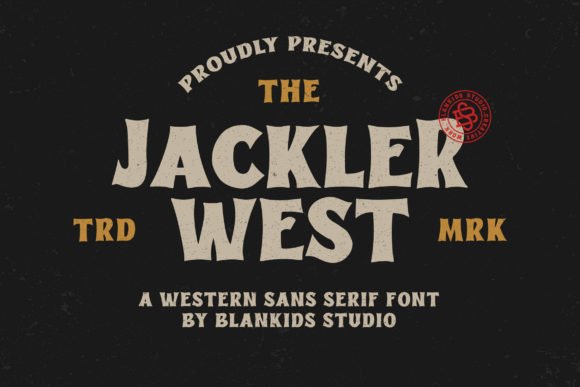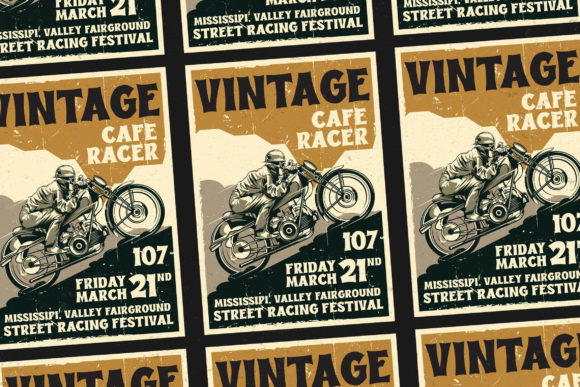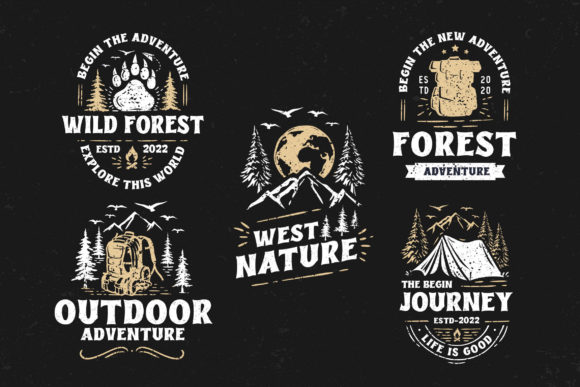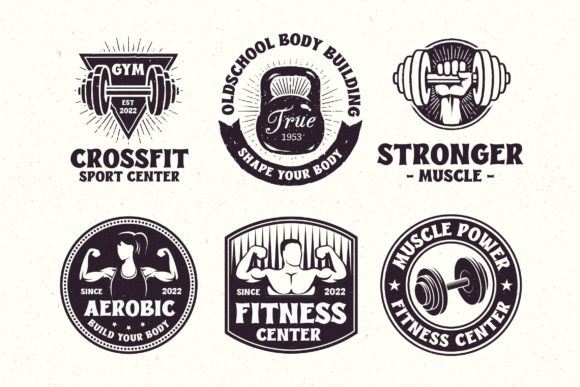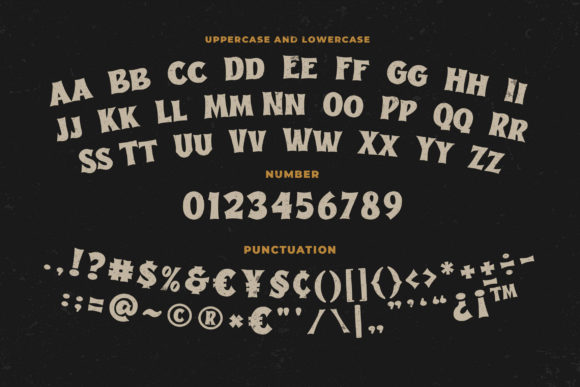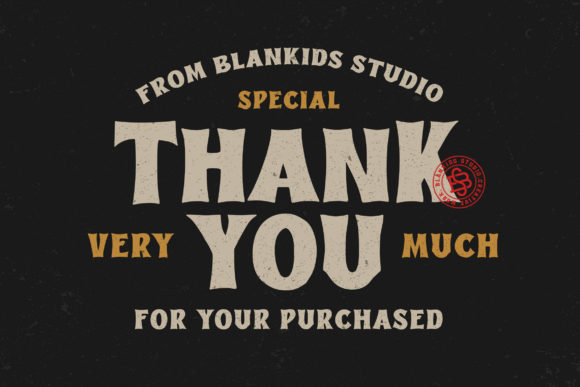
Discover the Perfect Blend of Vintage and Playful Typography
Have you ever been browsing through a dusty old bookstore, stumbling upon a vintage novel with a quirky font that instantly caught your eye? That’s exactly the kind of creative spark we’re talking about. A font that can evoke emotions, transport us to another era, and leave us in awe. If you’re looking to create something that embodies this very essence, then you’re in luck!
Introducing the Jackler West Font, a Western Display Font that beautifully combines vintage typography with a playful twist. This stunning font is perfect for designers who want to add a touch of whimsy to their projects. With its unique aesthetic, Jackler West Font is ideal for book covers, posters, packaging, merchandise, and logotypes.
As a designer, you’ll appreciate the versatility and charm of Jackler West Font. Its vintage vibe and playful style make it a valuable addition to any design project, guaranteed to stand out and inspire creativity in your audience.
Jackler West Font Key Features
- Unique Characteristics: Features a unique blend of modern and classic elements, making it an ideal choice for designs that require a touch of sophistication and elegance.
- X-Height: The x-height of the font is carefully designed to provide excellent readability, even at smaller font sizes.
- Language Support: Supports a wide range of languages, including Latin-based languages, making it a great choice for global design applications.
Designer Review: Jackler West Font
Overall, I have mixed feelings about the Jackler West Font. While it has some unique qualities, it falls short in other areas.
✨ The font has a distinctive, retro feel to it, reminiscent of classic western fonts.
- ✨ The bold weight is well-defined and makes for great headlines.
- ✨ The font is highly legible, even at smaller sizes.
⚠️ The font’s thin weight is somewhat lacking, making it difficult to read at larger sizes.
- ⚠️ The font lacks a strong vertical axis, making it appear slightly unstable.
- ⚠️ Some letters, such as ‘k’ and ‘x’, have an awkward, disconnected feel to them.
While the Jackler West Font has some redeeming qualities, its limitations hold it back from being a top-tier font. It’s a good choice for projects where a retro feel is desired, but not necessarily for body text or other critical applications.
The Jackler West font is ideal for creative projects, such as:
• Branding and marketing materials
• Digital art and graphics
• Print designs and posters
• Typographic-based art
Remember to use the font in a way that complements its unique style and characteristics.
Experiment with different font sizes, colors, and combinations to find the perfect balance for your project.
Use the font in conjunction with other creative elements to add visual interest and depth.
Play with the font’s unique characteristics, such as its vintage and distressed feel, to create a one-of-a-kind design.
Alternatives to Jackler West Font